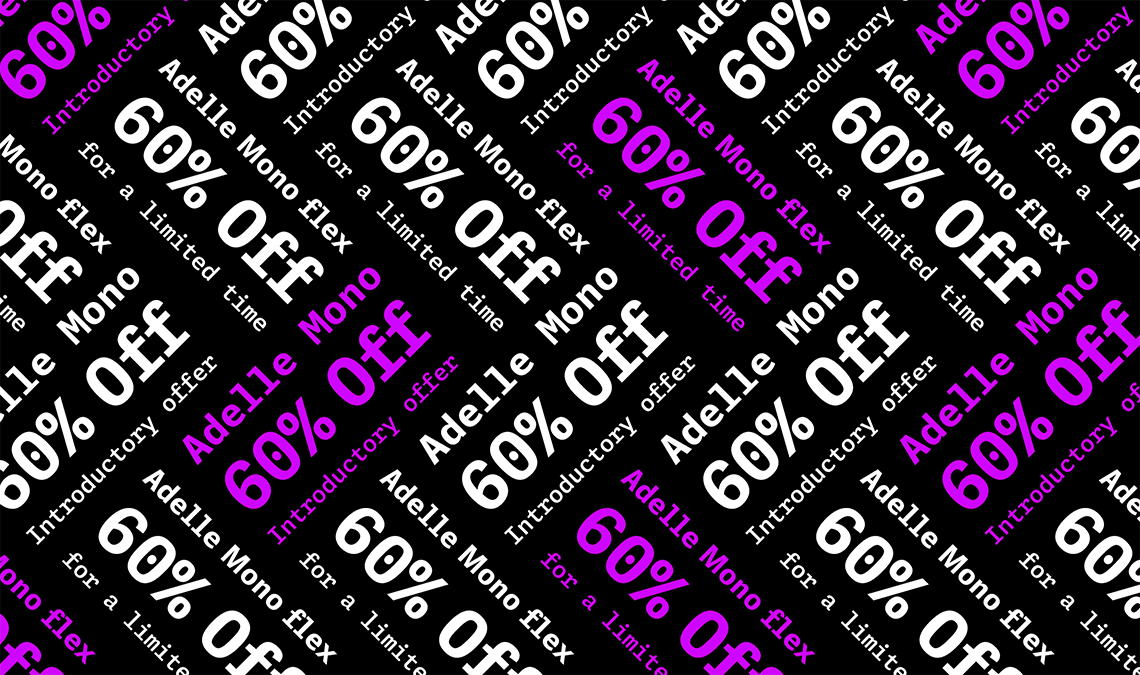
Adelle Mono release and 60% introductory offer
Developers and graphic designers, rejoice! We are very pleased to introduce another level to the Adelle family — a two-width system with a monospaced DNA. Comes in the usual static font styles (20 all together) and as variable font with two axes (one for weight and one for Mono-to-Flex width). Don’t miss the one-time 60% introductory discount!
The developer and the aesthete can celebrate together with the release of Veronika Burian and José Scaglione’s two-sided Adelle Mono family. Adelle Mono is the true monospaced version for developers to use during their time of unseen creativity. Adelle Mono Flex is the proportional version that’s suited for text, branding, UI, captions, and screens — it feels monospaced but reads like a nice slab. Read all about it, give it a thorough test run on our website type tester, and grab it while the 60% introductory discount lasts!